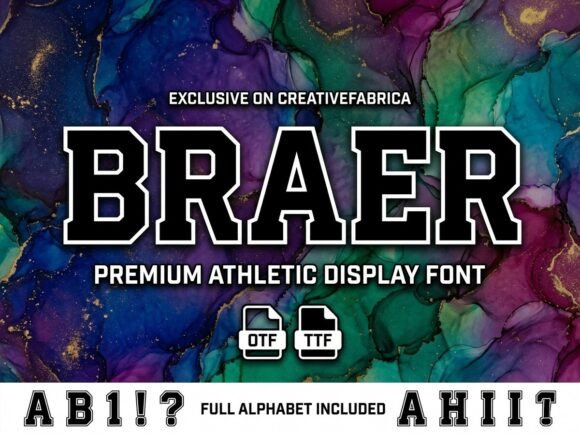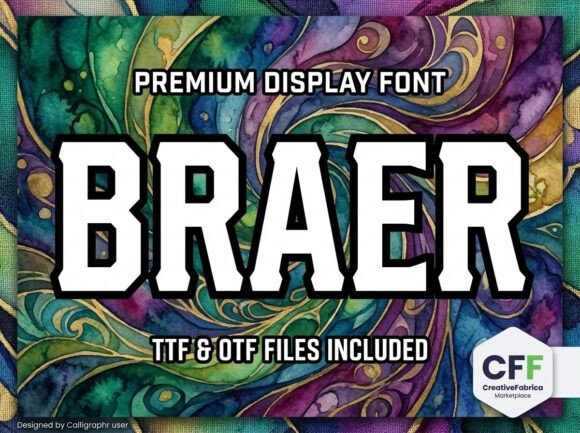
The Braer Font: A Stunning Decorative Display Font for Creative Minds
This decorative display font is designed to be the center of attention, featuring unique artistic elements and a strong visual personality that perfectly captures the essence of creative expression. In this article, we’ll dive into the world of Braer Font, exploring its features, uses, and everything in between.
An Honest Review of Braer Font
What I Love About Braer Font ✨
• ✅ Unique artistic elements that add a touch of sophistication to any design
• ✅ Strong visual personality that commands attention
• ✅ Versatile enough for bold headlines, artistic logos, and creative packaging
• ✅ Professional and polished finish that elevates any design
One thing to note about Braer Font is that it’s an ALL-CAPS (Uppercase Only) display typeface, which means it doesn’t include lowercase letters. This might be a limitation for some designers, but it’s actually a deliberate design choice to focus on high-impact headlines, logos, and decorative initials where every letter is a work of art 🤔.
The Backstory of Braer Font
The Braer Font was designed with the intention of creating a unique and artistic display font that would stand out in any design. The designer aimed to craft a font that would be perfect for high-impact headlines, logos, and decorative initials, where every letter is a work of art. The result is a stunning decorative display font that is sure to elevate any design.
Font Name Braer Font
Q: Is Braer Font suitable for body text?
A: No, Braer Font is a display font designed for high-impact headlines, logos, and decorative initials. It’s not suitable for body text due to its decorative nature and lack of lowercase letters.
Q: Is Braer Font easy to read?
A: Braer Font is designed to be attention-grabbing and decorative, but it may not be the most readable font for long blocks of text. It’s best used for headlines, titles, and short phrases.